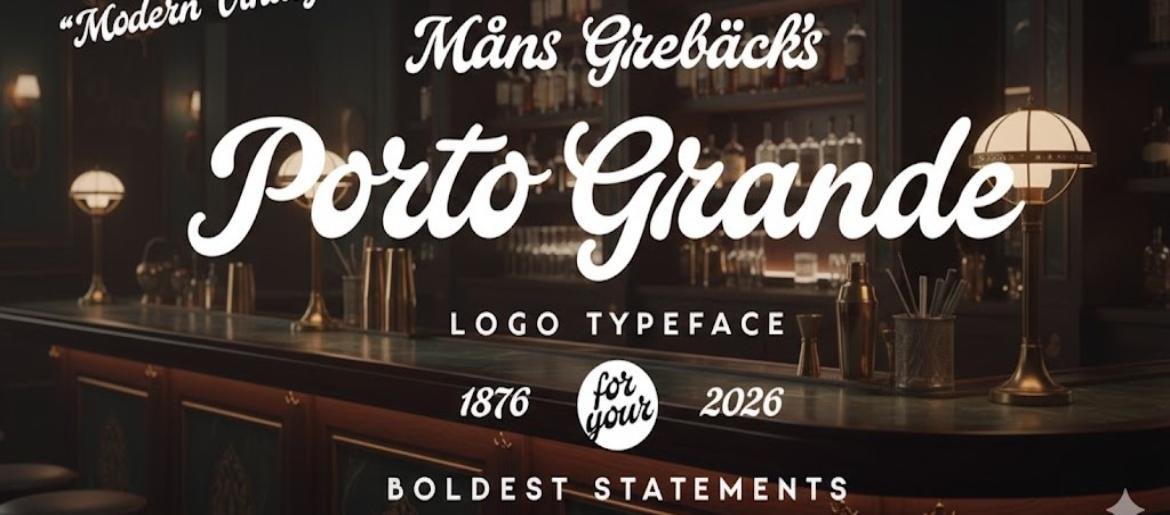
Porto Grande Font
Porto Grande Font by Måns Grebäck is a vintage font that moves with real confidence. Its flowing strokes draw from classic sign-painting traditions while feeling completely at home in modern design — warm, stylish, and full of character.
It is the kind of typeface that works equally well on a wine label, a café menu, or a wedding suite. The personality is strong but never overdone, making it a reliable choice for projects that need a human touch without sacrificing elegance.
Designer: Måns Grebäck
Style: Vintage, Script